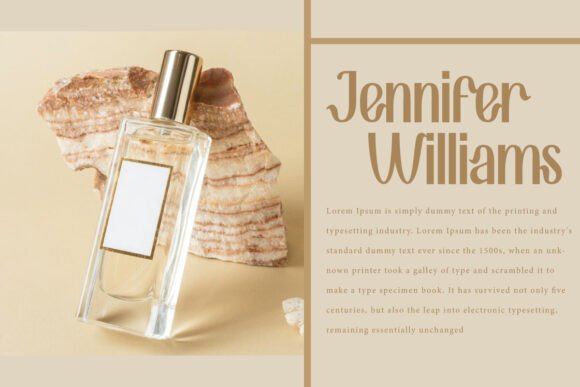
Castle Rustic Font is an aesthetic sans serif display font inspired from old medieval retro era . This font can bring vintage feels in your design and make it interesting. It will be perfect for any designs, such as brand image, cover, custom design, invitation, label, marketing material, menu, poster, product packaging, quote, signage, stationery, web, and many more!